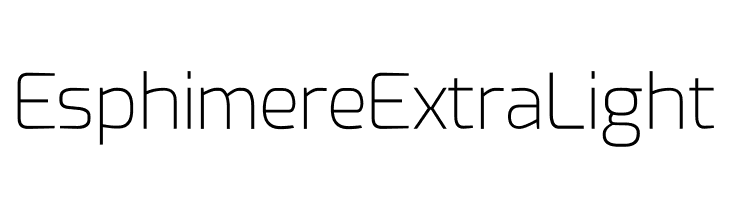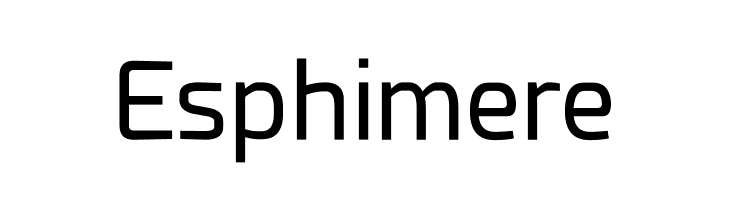
A modern, geometric sans-serif font with uniform stroke width.
A modern, geometric sans-serif font with clean lines and balanced spacing.
A sleek, modern sans-serif font with an extra-light weight and subtle italic slant.